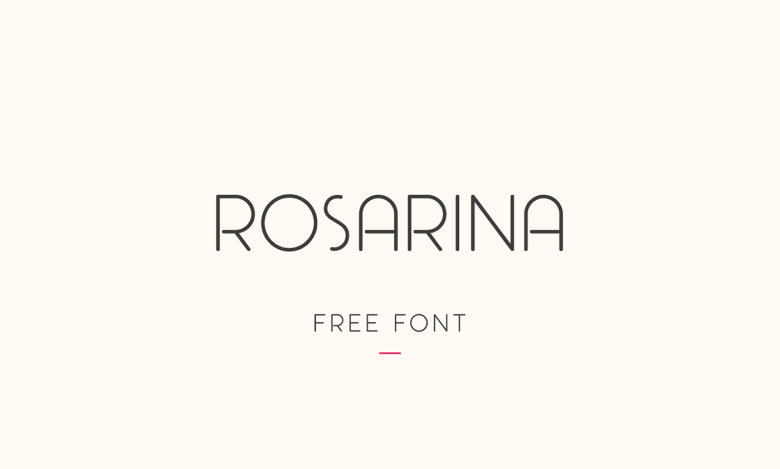
Rosarina Font
Introducing the font with simple, minimalistic. Introducing Rosarina Font! Rosarina designed and shared by Mariano Diez. Rosarina Font is a romantic, timeless, and minimalistic all caps sans serif font that looks stunning in every context. You could use it in editorial, magazine, product packaging, branding, etc.